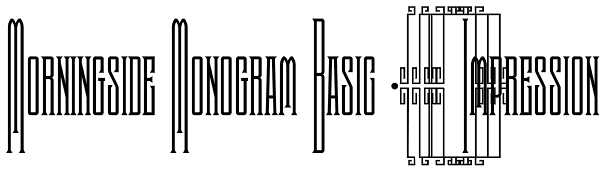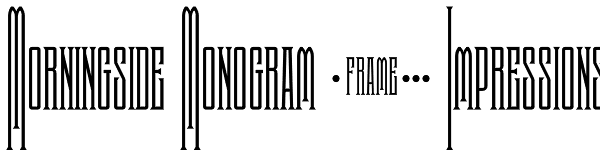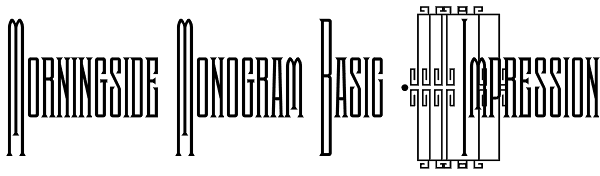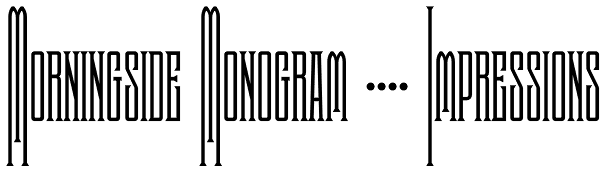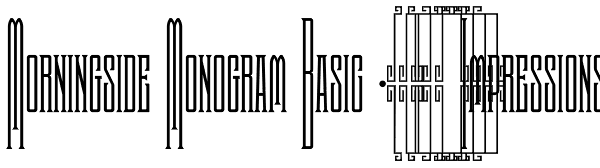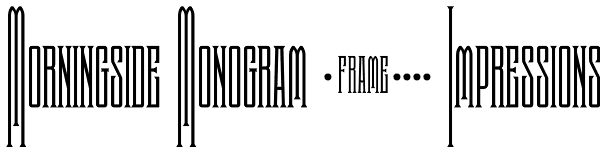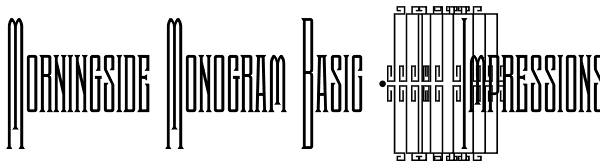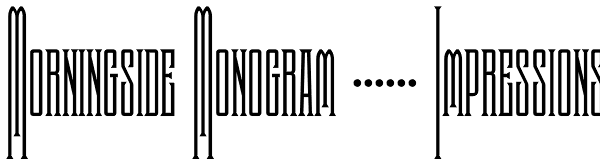
MFC Morningside Monogram
The inspiration source for Morningside Monogram is the 1934 Book of American Types by American Type Founders. One of their most popular monogram styles in that specimen book was called "Fifth Avenue Monogram Initials", which was only available in...